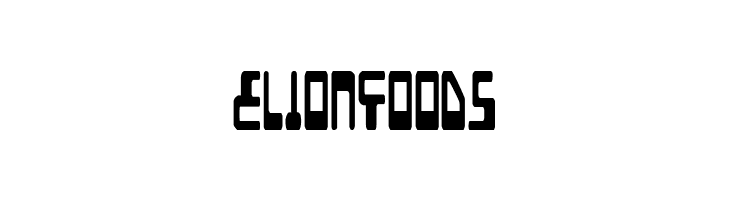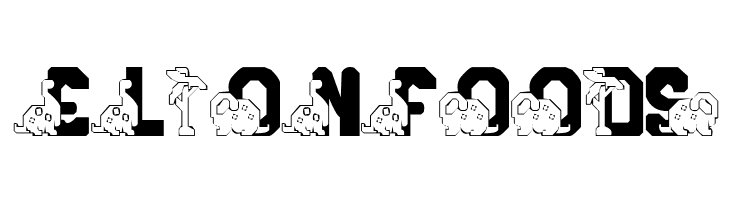
A bold, dynamic font with playful curves and a modern-retro flair.
A bold, high-contrast font with a modern and unique design.
A bold, condensed font with a modern, geometric style.
A bold, geometric font with decorative elements and a vintage touch.